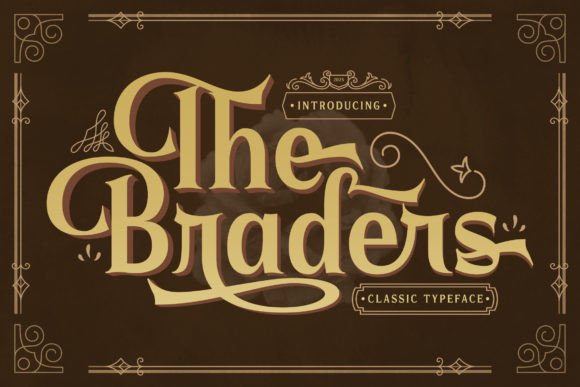
Welcome to the world of Braders Font, a serif typeface that exudes elegance and sophistication. This modern classic font, crafted with precision by Storytype Studio, boasts a distinctive style that sets it apart from the ordinary.
Immerse yourself in the beauty of Braders Font, with its graceful curves and sharp serifs that dance together in perfect harmony. Each letterform is a work of art, meticulously designed to convey a sense of luxury and refinement. Whether you're creating a stunning logo, a captivating book or movie title, or a fashion-forward magazine layout, Braders Font will elevate your designs to new heights of artistry.
Let Braders Font transport you to a world of timeless elegance and effortless style. Its versatility knows no bounds, seamlessly adapting to a wide range of creative projects. Whether you're crafting a heartfelt letter, designing a captivating poster, or creating an unforgettable brand identity, Braders Font will be your trusted companion, adding a touch of sophistication and charm to every word.
Experience the allure of Braders Font today and see how it transforms your creative visions into masterpieces. Let its timeless beauty captivate your audience, leaving a lasting impression that will endure for years to come.